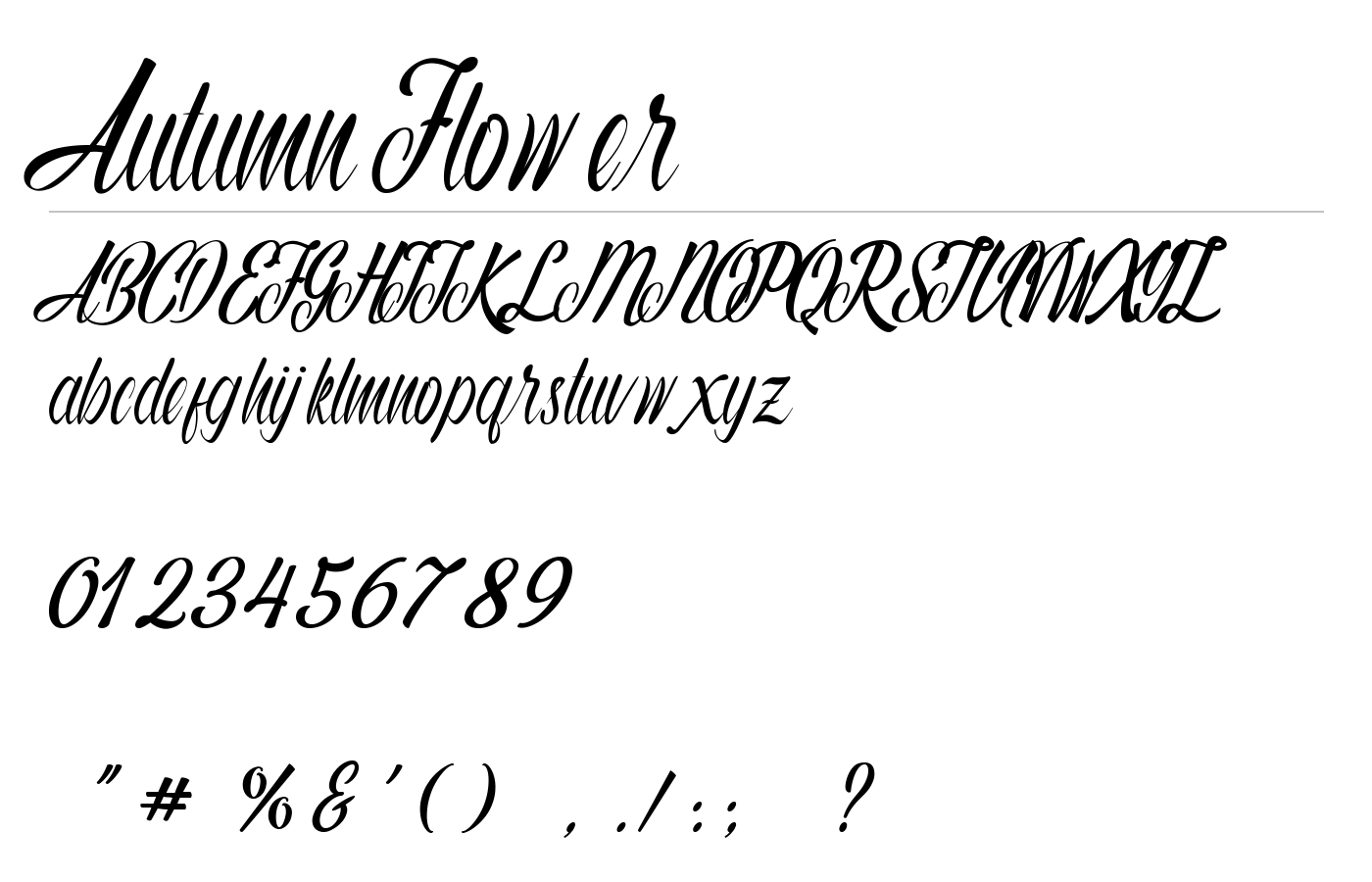
Autumn Flower is an elegant script font featuring graceful, flowing letterforms with a high contrast between thick and thin strokes, giving it a refined and sophisticated look. Its tall, narrow characters and slight slant create a sense of movement and delicacy, making it perfect for luxury branding, wedding invitations, and stylish editorial headlines. This font’s classic cursive style communicates a romantic and timeless charm that works beautifully in designs that seek to convey elegance and refinement.
Autumn Flower Font
About Autumn Flower Font
| Font family | Autumn Flower Font |
| Designer | thirtypath |